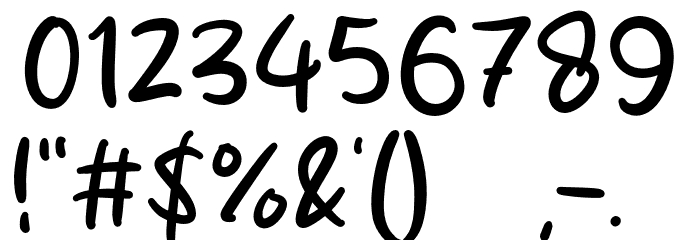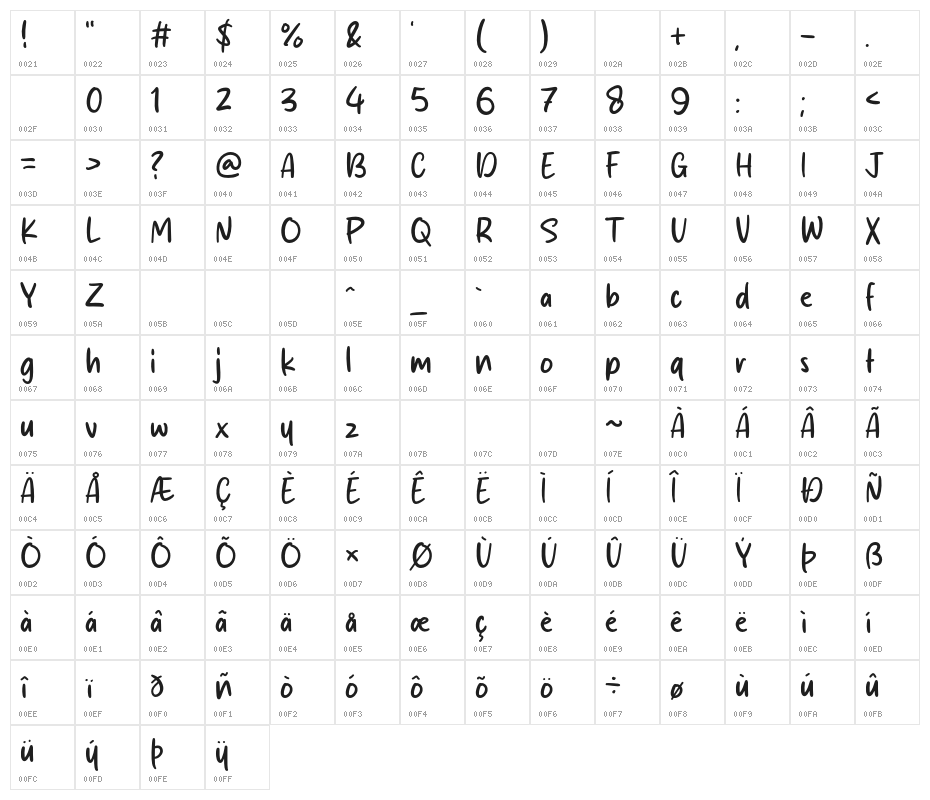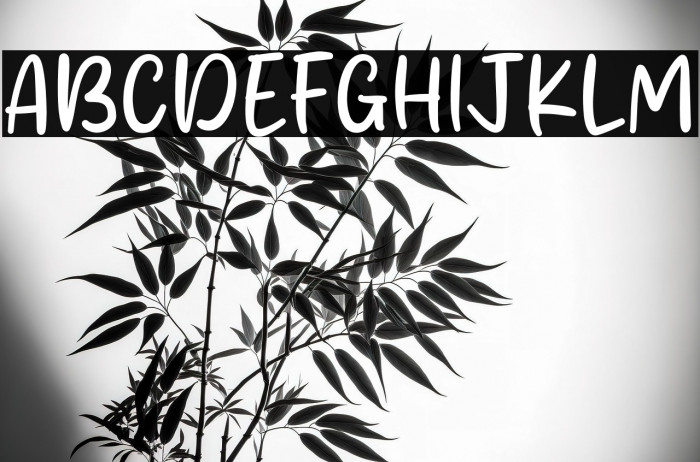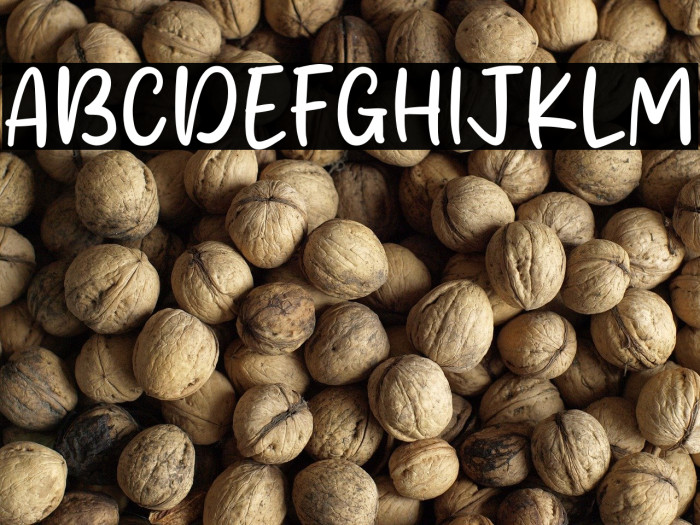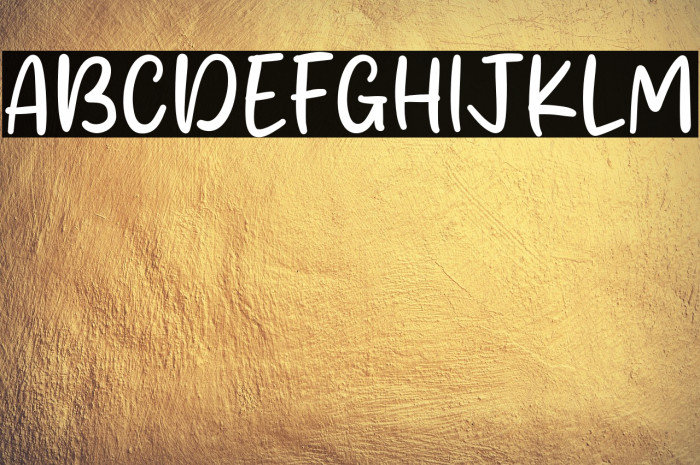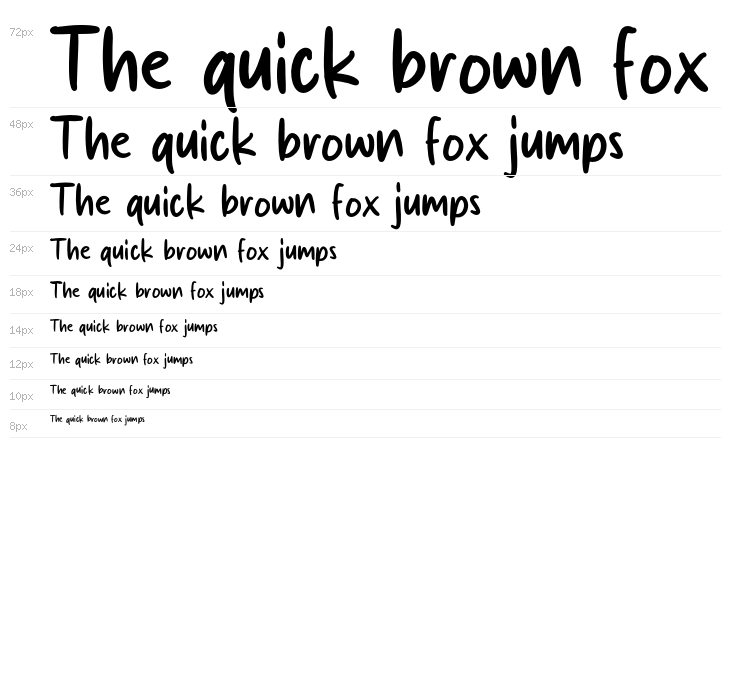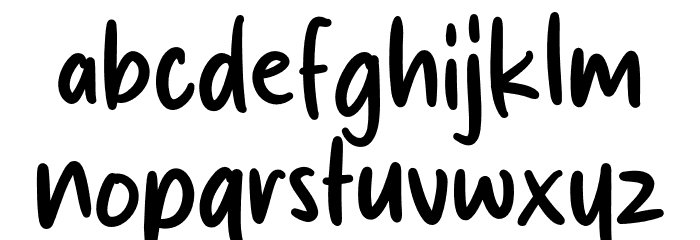
Pinky Apple Font
Pinky Apple Description
This playful and energetic font features a handwritten style with smooth, rounded edges and a casual, friendly appearance. The letters are slightly slanted, giving it a dynamic and informal feel. The uppercase and lowercase characters are well-balanced, with consistent stroke widths that maintain readability. The numerals and special characters are designed to match the overall style, ensuring a cohesive look across all text. This font exudes a sense of fun and creativity, making it ideal for projects that require a personal touch.
| Proposed Projects | Ideal for greeting cards, children's books, playful branding, and social media graphics. |